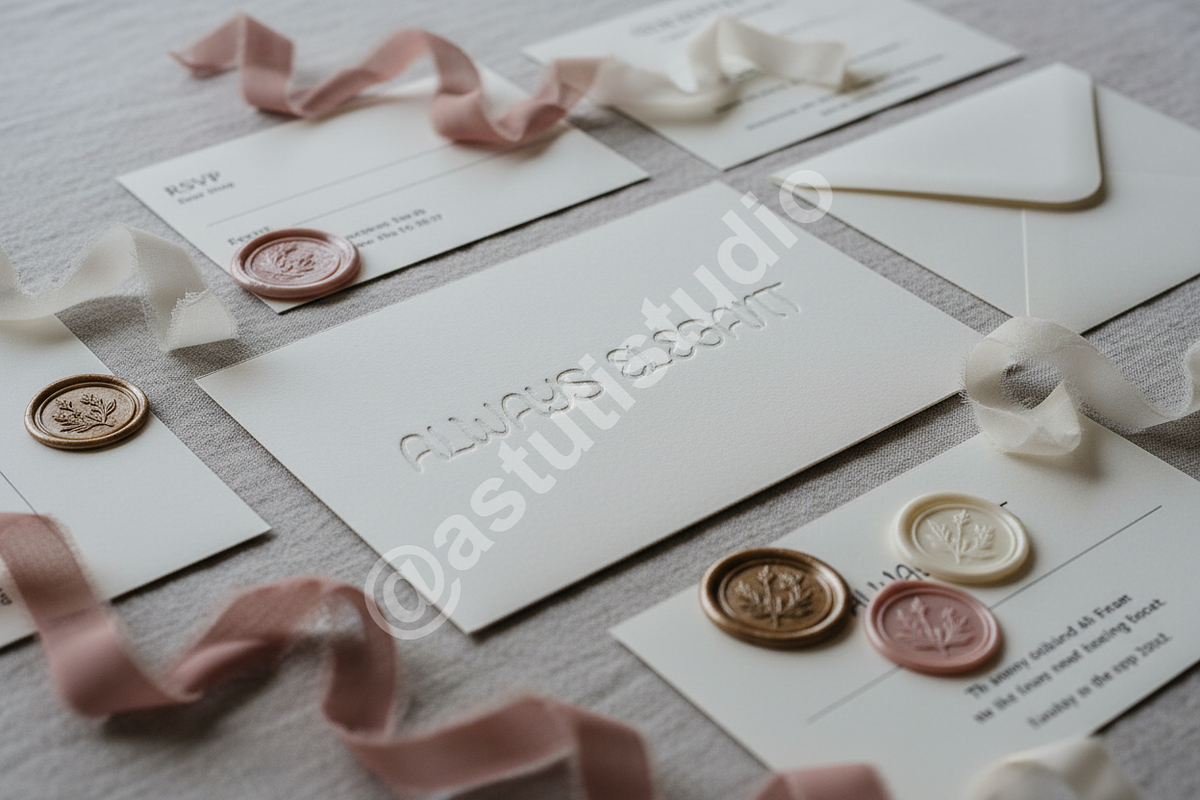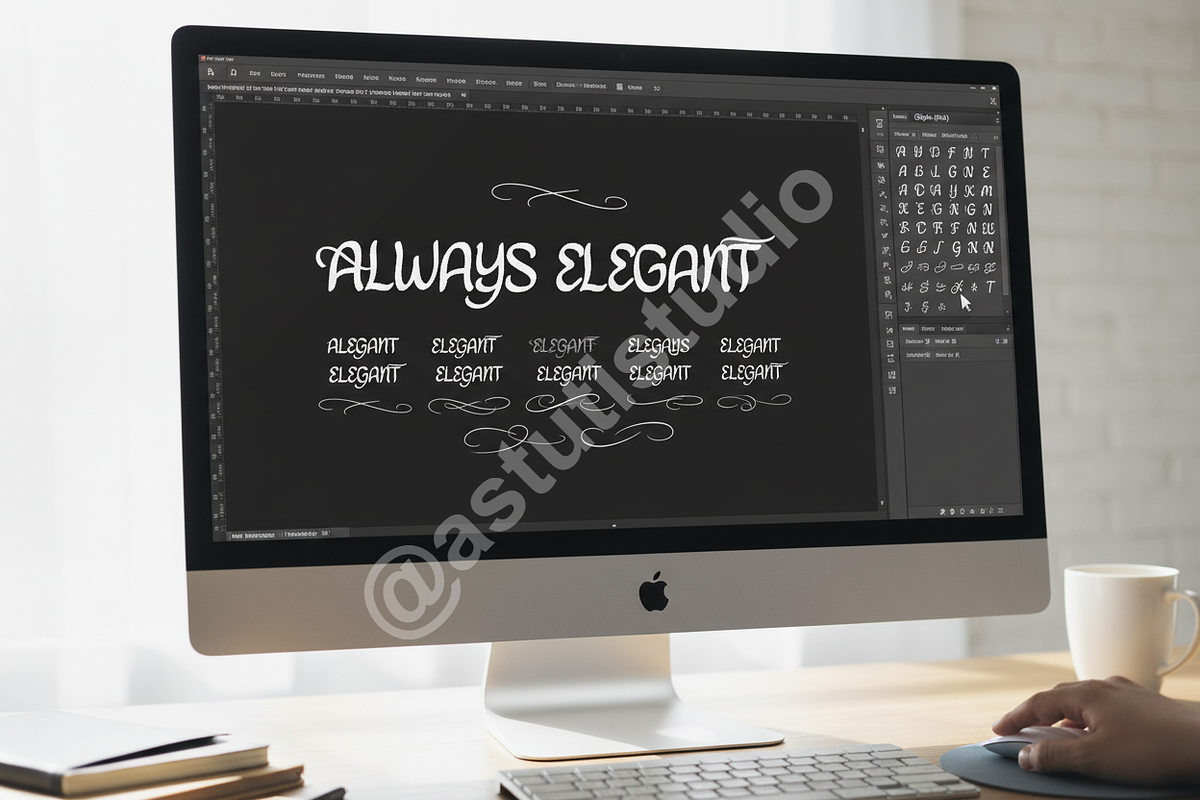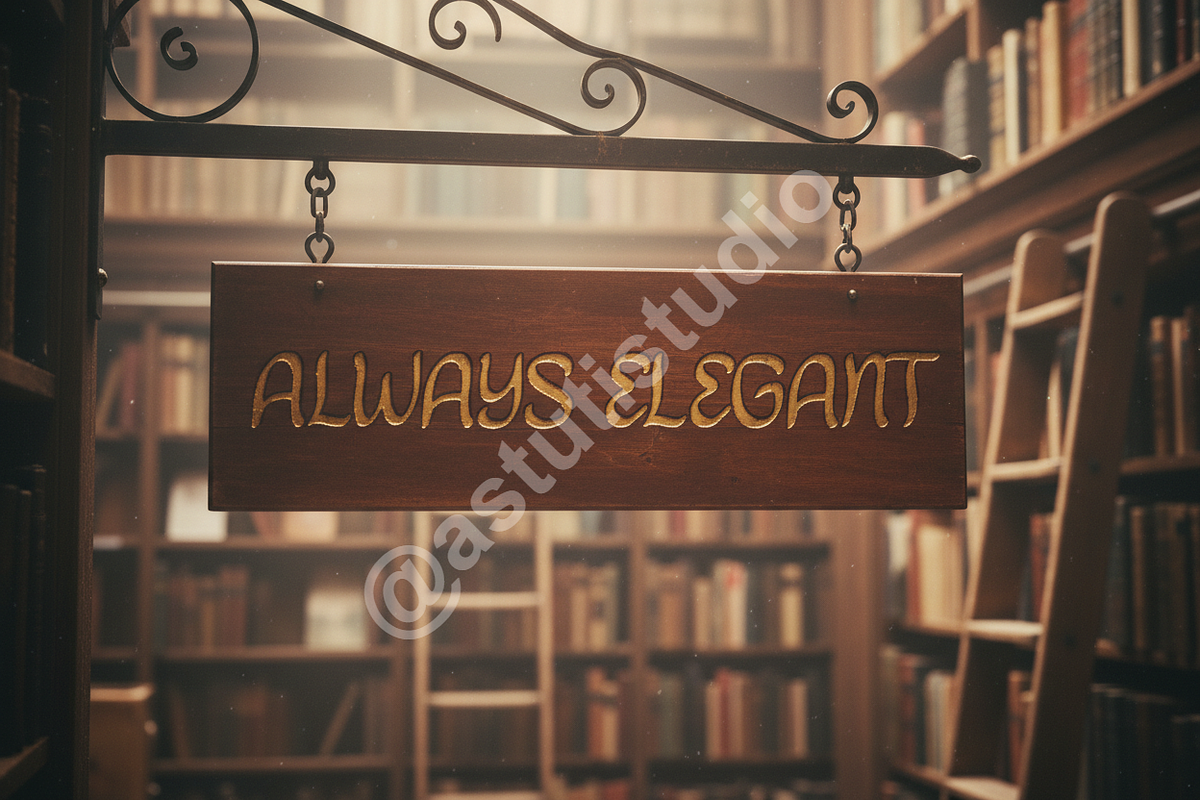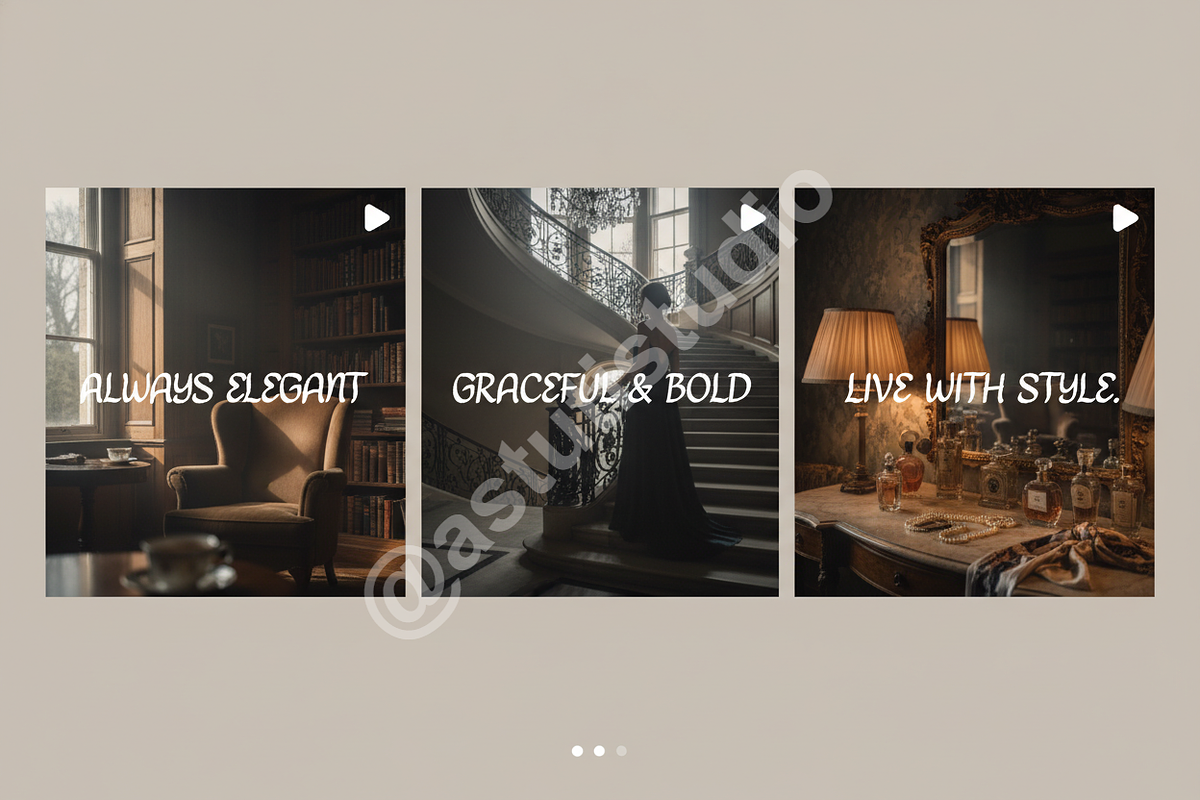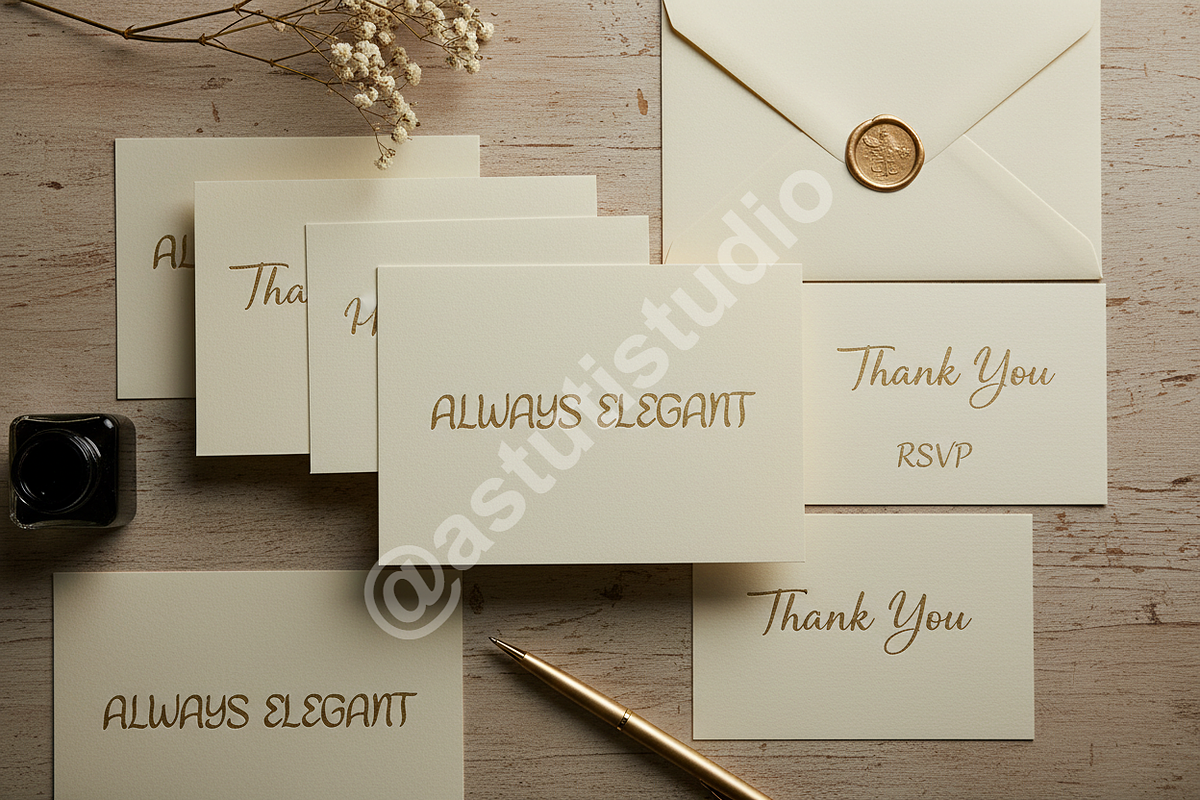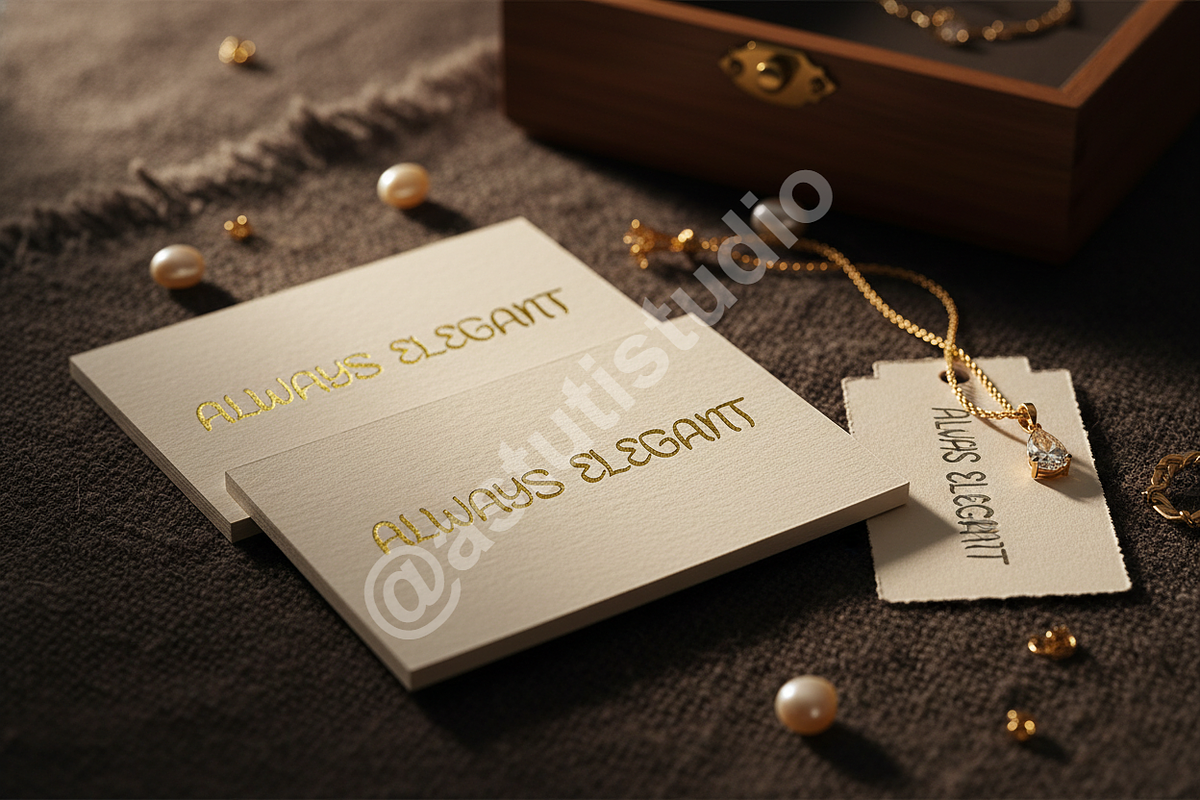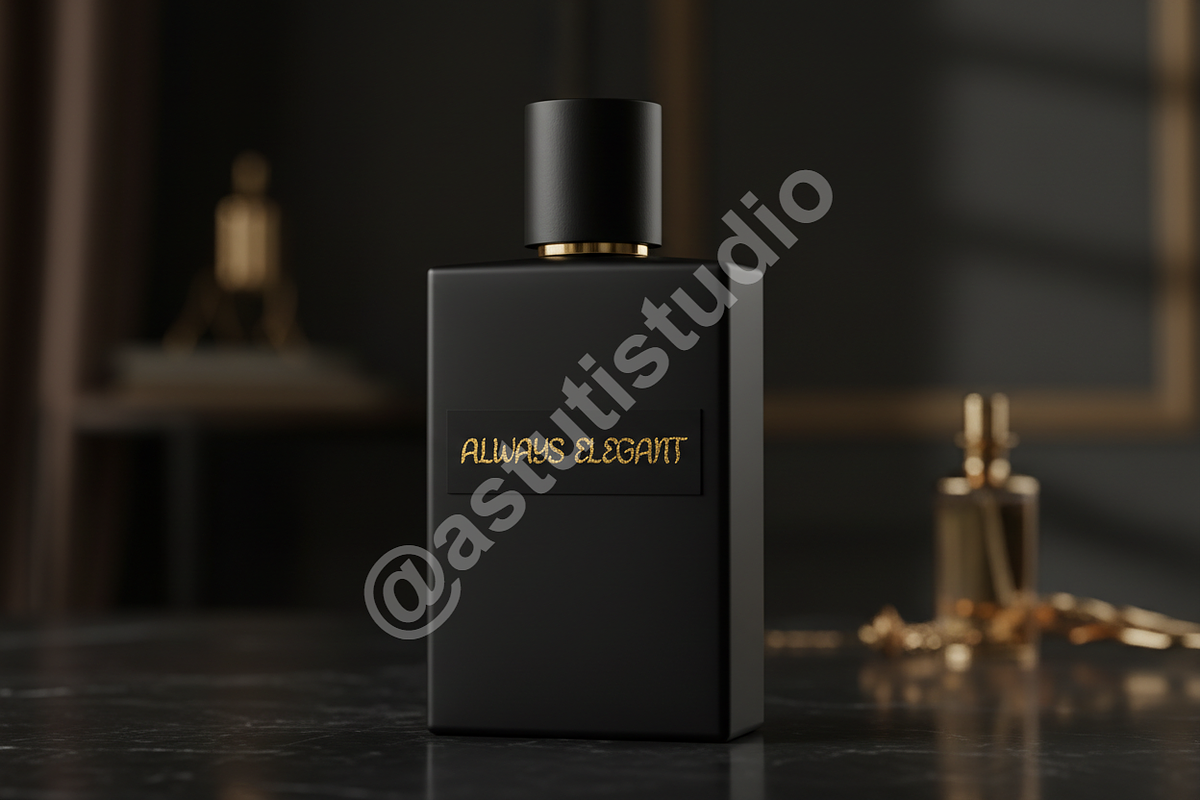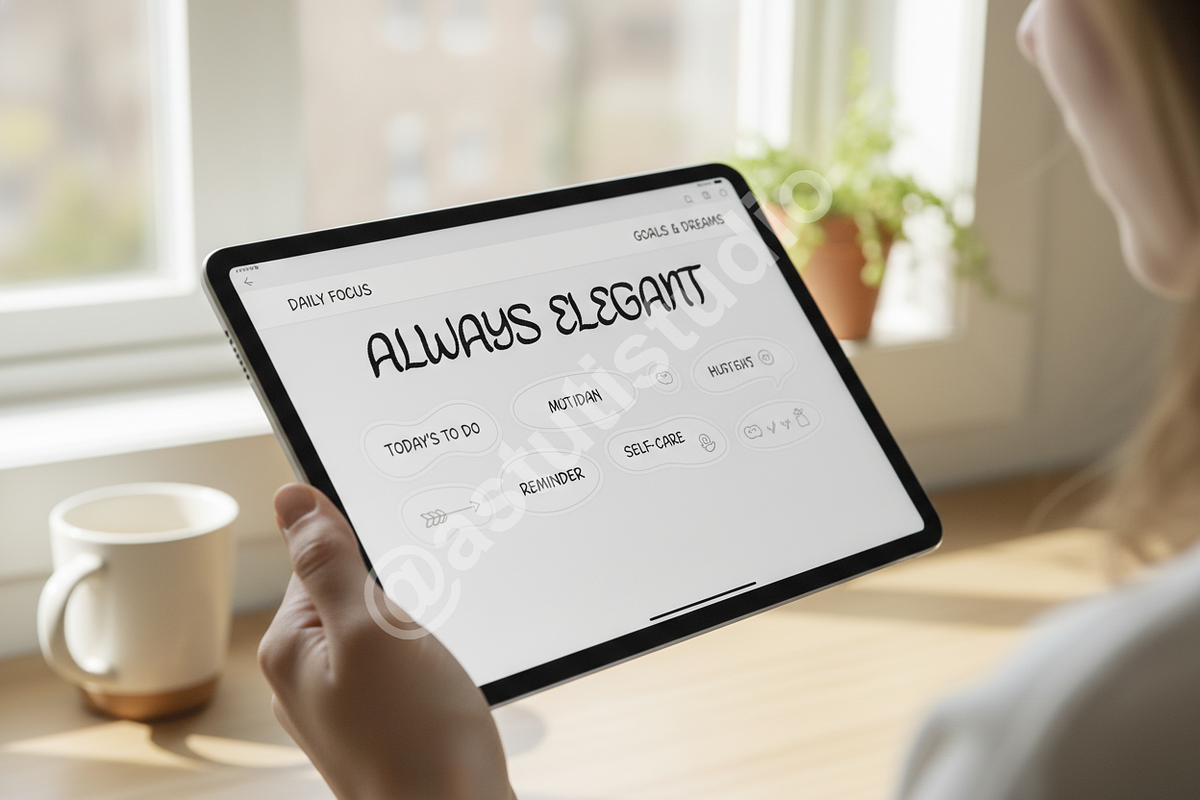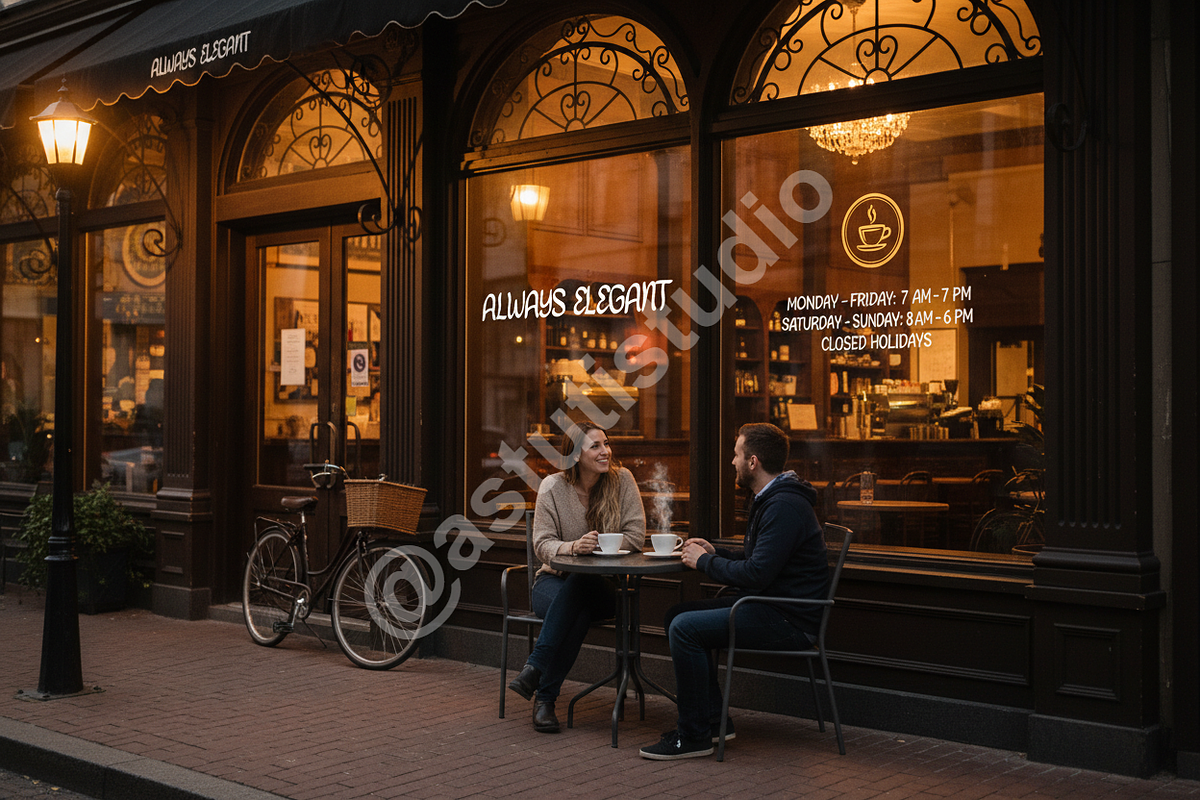
Dabija | Elegant Display Serif Typef
Dabija is a testament to timeless sophistication, meticulously crafted for designers who demand purity and refinement. This premium display serif embodies classic elegance with a contemporary edge, making it the quintessential typeface for conveying high-value luxury and established heritage. Whether setting mastheads, curating high-fashion editorials, or designing aspirational digital campaigns, Dabija ensures your message resonates with unmistakable prestige.
- Optimized for Luxury Branding: Perfect for high-end logos, distinctive packaging, and visual identity projects where elegance is paramount.
- Editorial Authority: Sharp serifs and controlled high contrast provide excellent readability and structure for magazine layouts and publishing.
- Digital & Social Ready: Clean lines translate flawlessly to web headers, impactful hero sections, and elegant social media marketing materials.
- Full European Language Support: Includes comprehensive multilingual glyphs (accents, umlauts, cedillas) for global design consistency.
- Advanced OpenType Features: Complete set of standard and discretionary ligatures for professional, seamless typesetting.